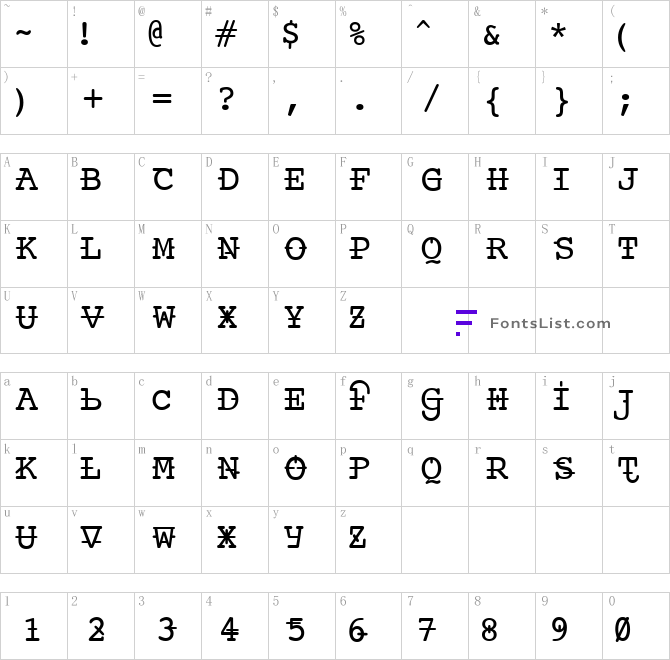
- Font Name:Ankora
Ankora.ttf is a very beautiful artistic font, Ankora.ttf is widely used in the design and printing of various books and pictures,Ankora.ttf has a strong visual impact,Ankora.ttf is a commonly used font in newspapers, magazines and books, and is used in posters, e-commerce Poster design, store design, logo design, font design and other fields.Ankora.